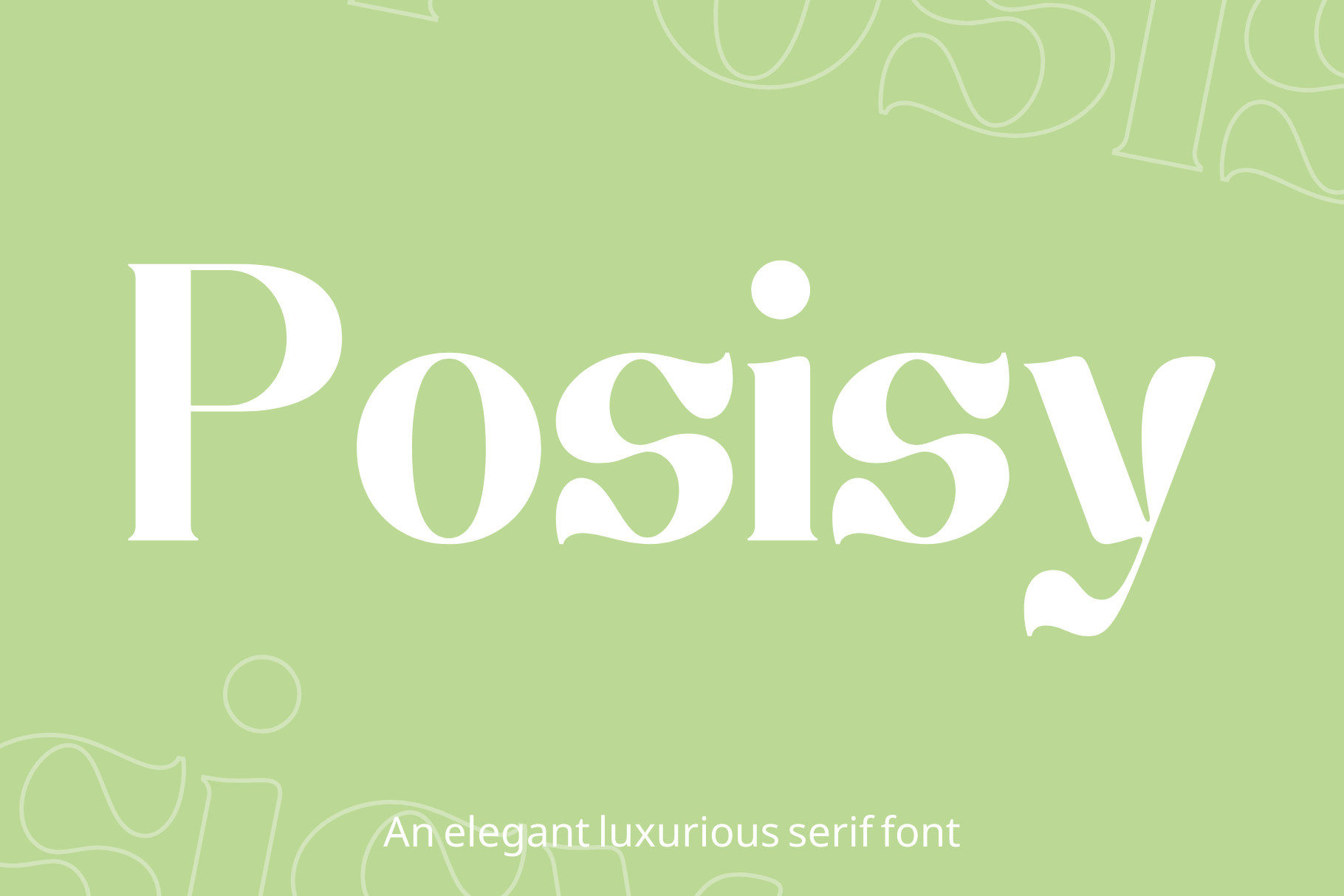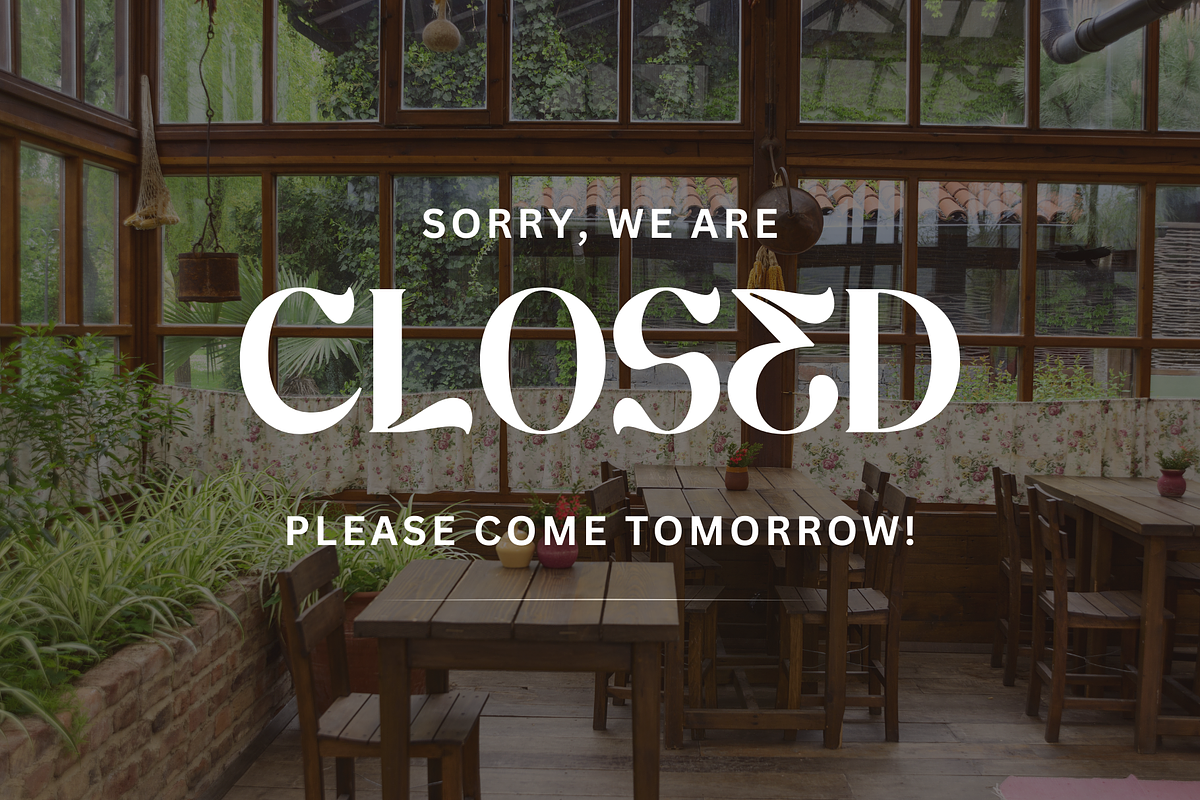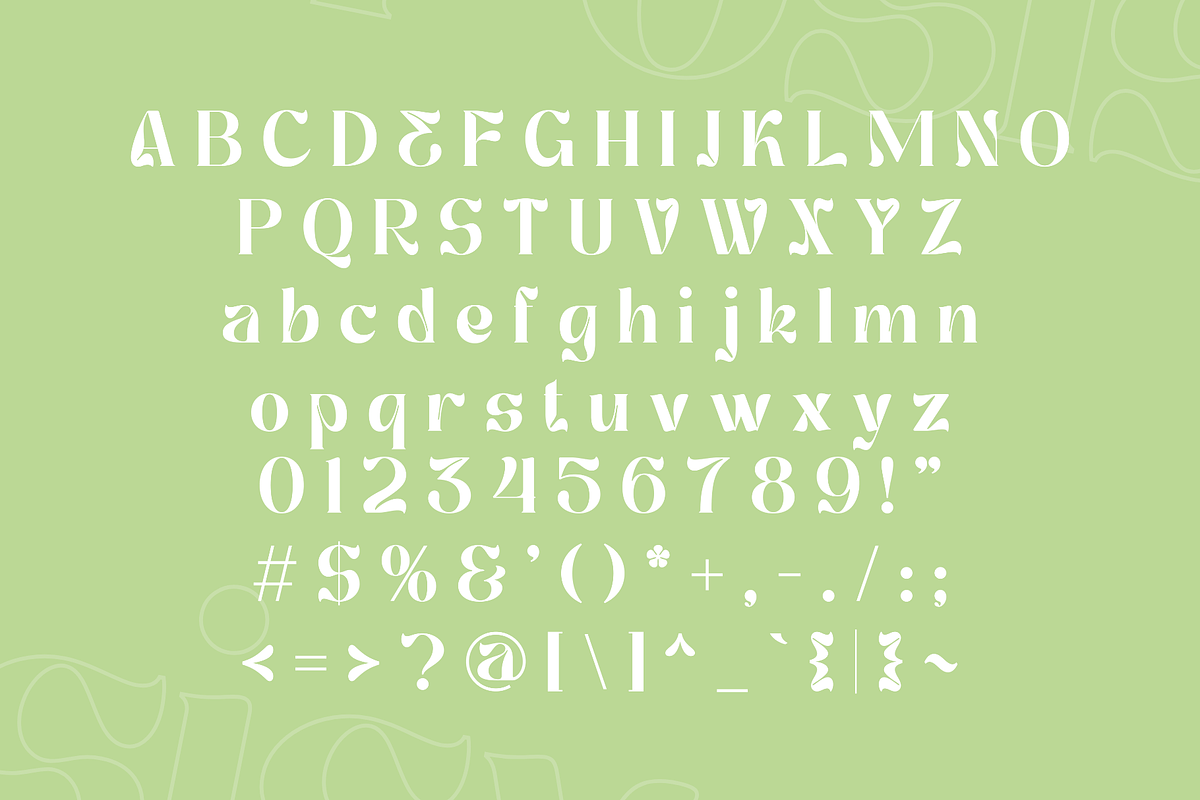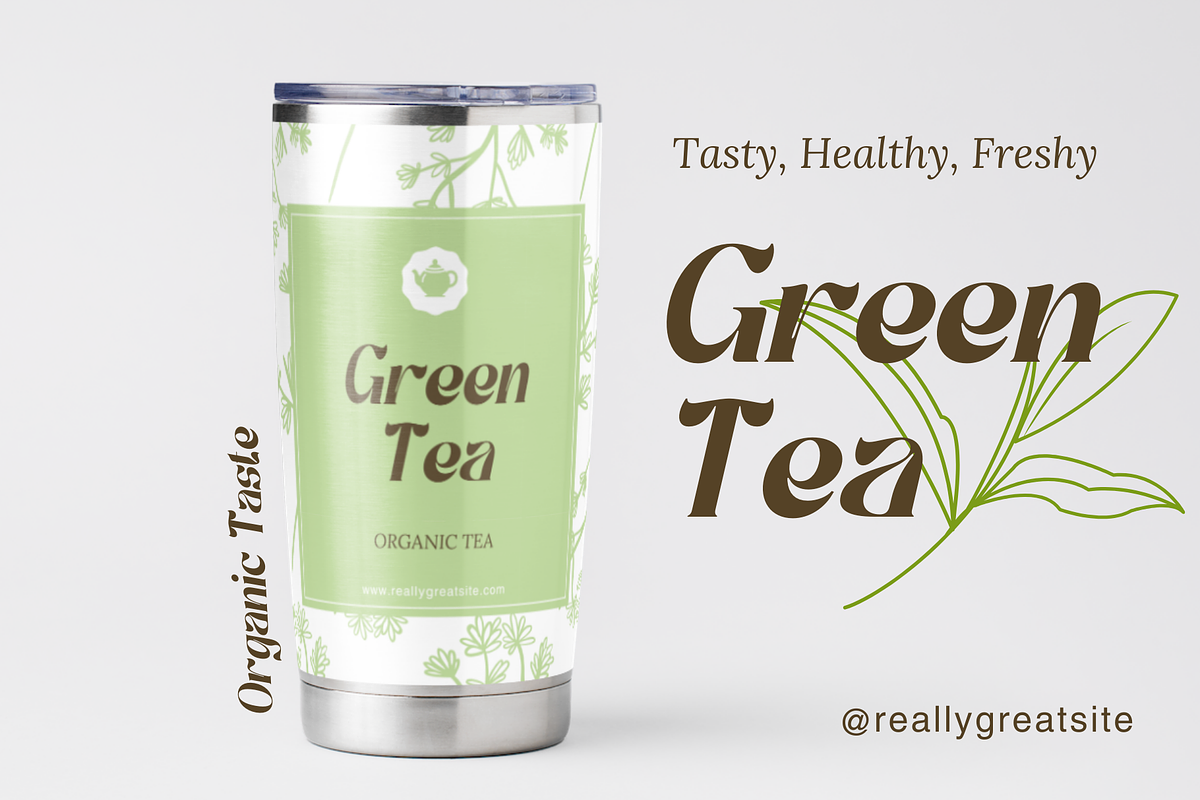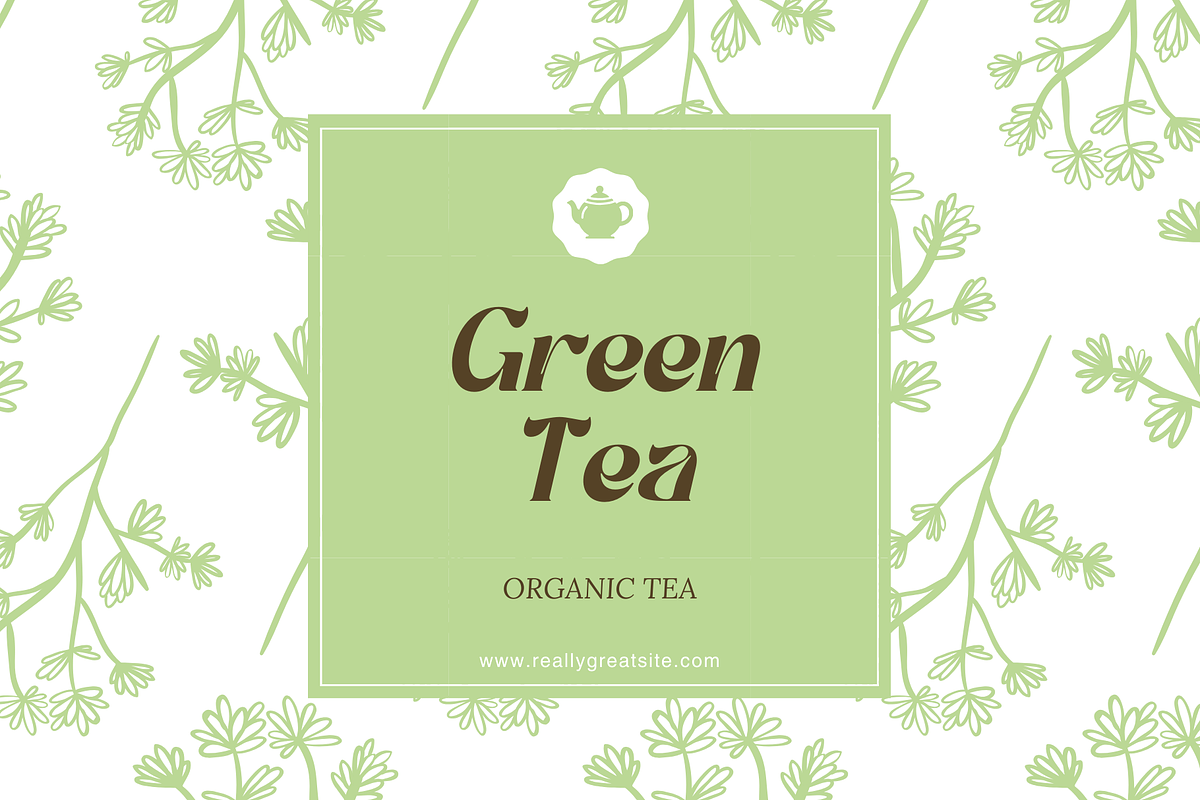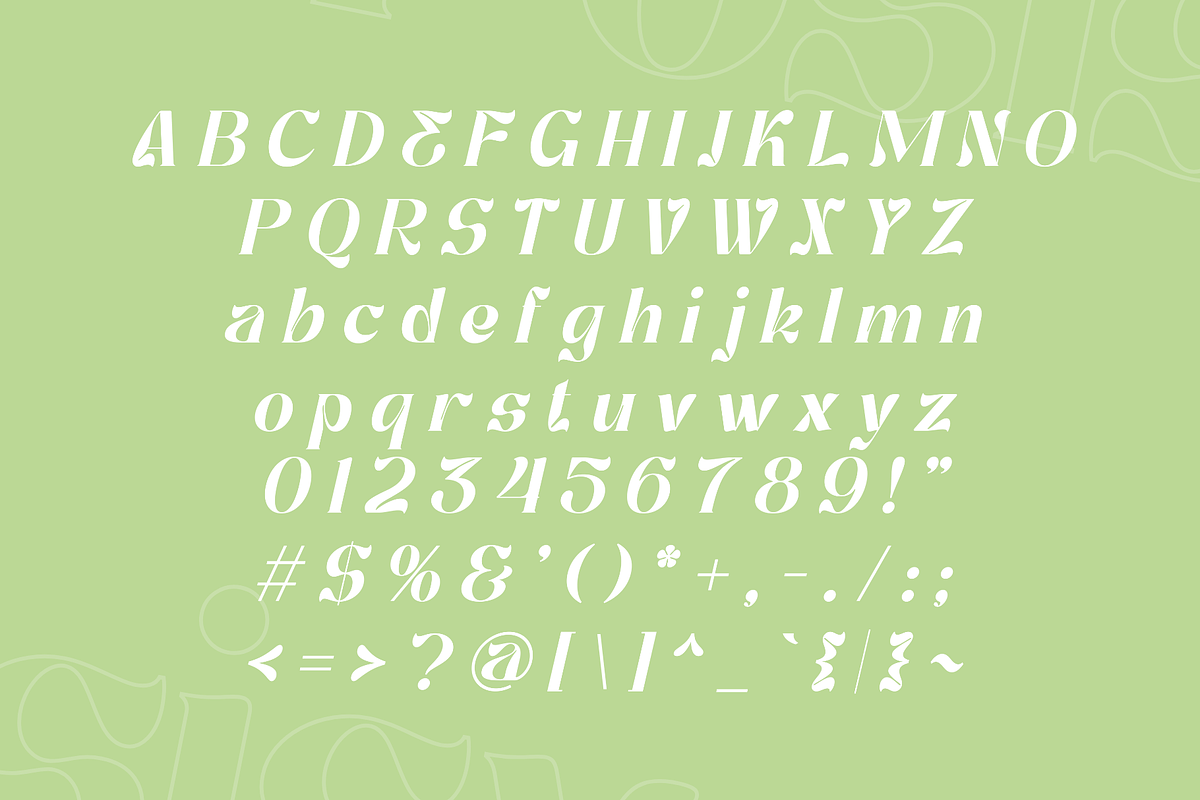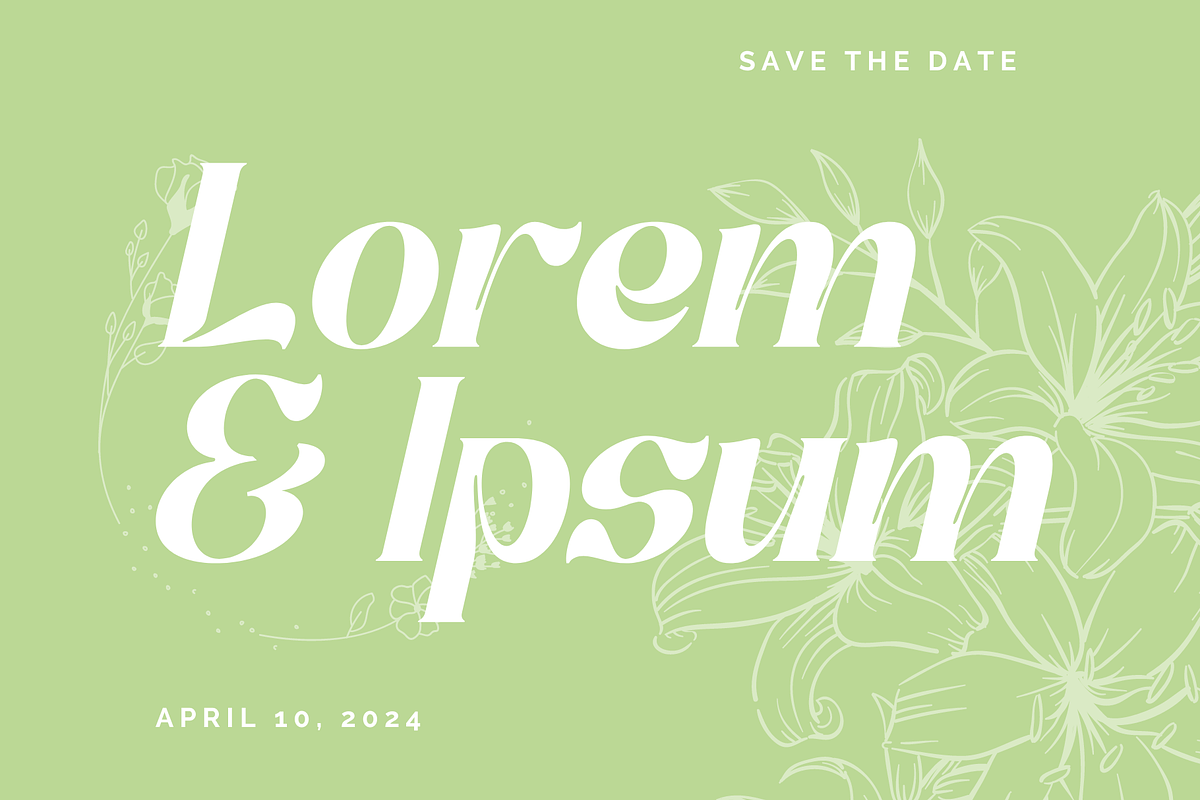
Posisy - Luxurious Serif Font
Posisy is a bold serif font that exudes elegance and sophistication with its unique curves. Perfect for creating stunning wedding invitations, beauty product packaging, posters, advertisements, branding, and more, Posisy offers a distinctive style that sets your designs apart. The font includes uppercase and lowercase letters, numbers, and basic punctuation, all available in an italic style to enhance your creative options.